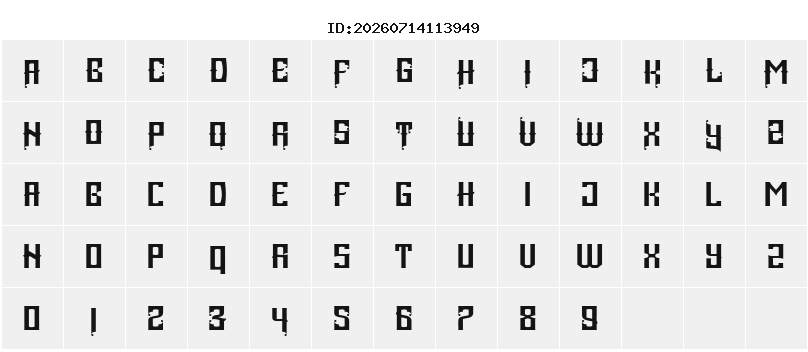
Heisenberg Preview
• Font Name: Heisenberg
• Font Style: Victorian
• Full Font Name: Heisenberg
• Designer: Endang Hidayat aka Bang Kumis Typefoundry
About Heisenberg.ttf
Heisenberg.ttf is a modern, elegant sans-serif font designed for ultimate readability and visual harmony. Perfect for branding, headlines, web design, and print materials.